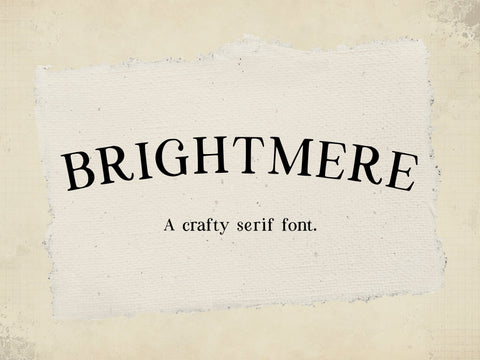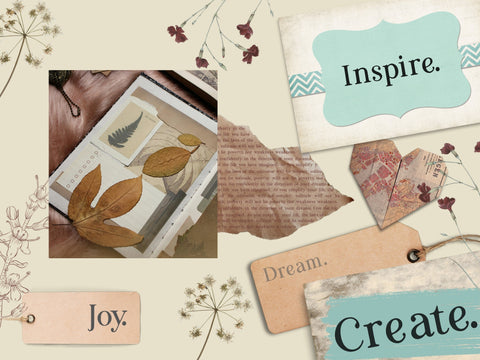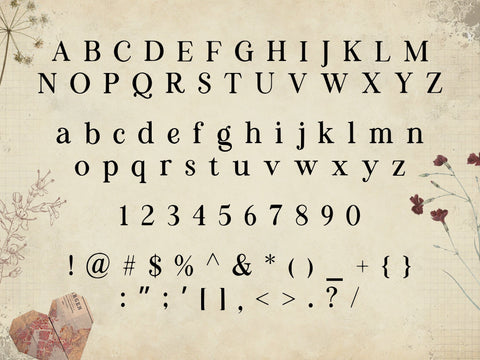
Brightmere - A vintage serif font.
Brightmere is a classic book-style serif font, crafted to bring warmth and character to your creative projects. Designed with junk journal enthusiasts in mind, it blends traditional elegance with a touch of vintage nostalgia. Inspired by the timeless fonts found in well-loved books, Brightmere offers a beautifully readable style that enhances the charm of aged pages and handwritten notes. Whether you’re layering old book excerpts, curating ephemera, or designing literary-inspired layouts, Brightmere makes every word feel like part of a story.
Perfect for junk journals, vintage ephemera, book pages, scrapbooking, invitations, branding, and handcrafted designs, Brightmere is made to add personality and charm wherever it’s used.